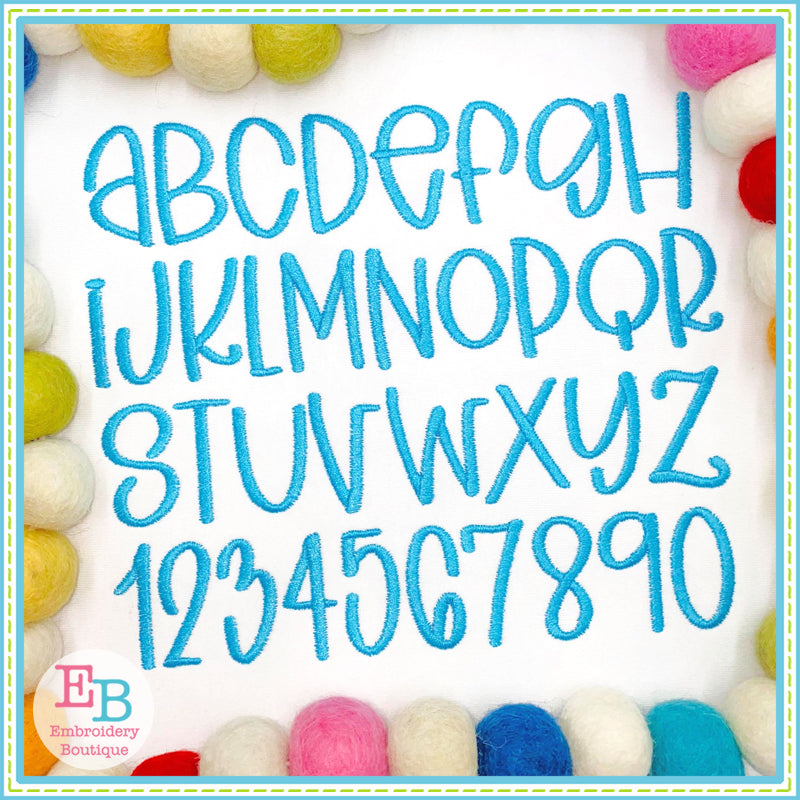
Sunshine Moments Satin Embroidery Font
Simple Moments Embroidery Font
9 sizes of letters included. A whimsical mixture of lower case and upper case letters available. 26 letters available in each size; however, there are not all 26 upper case nor all 26 lower case.